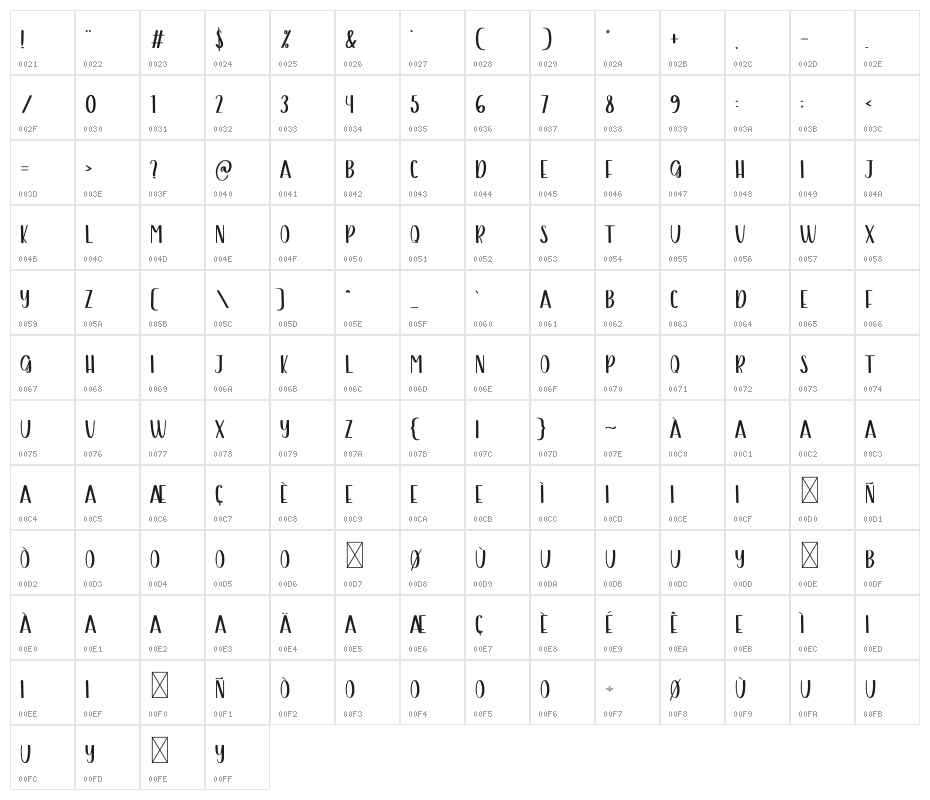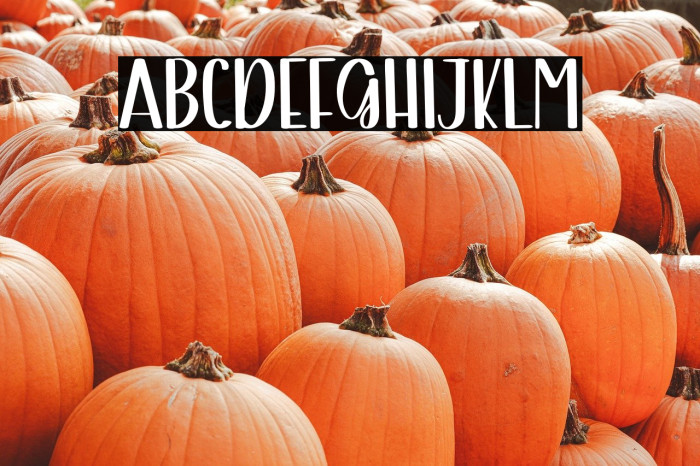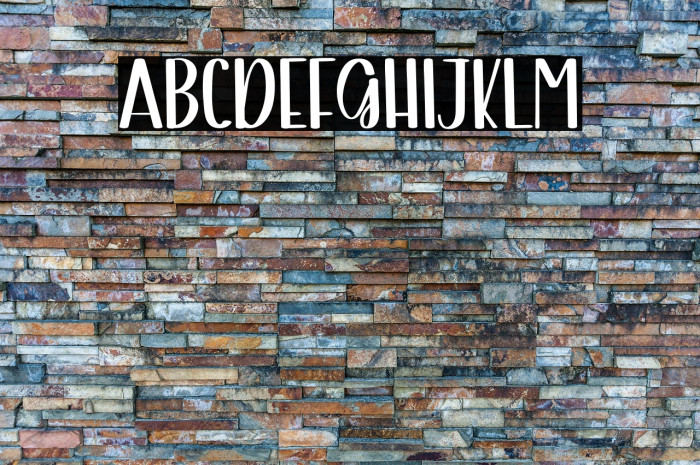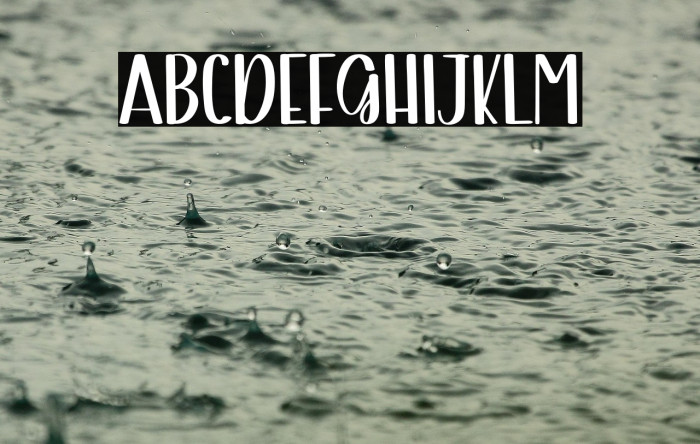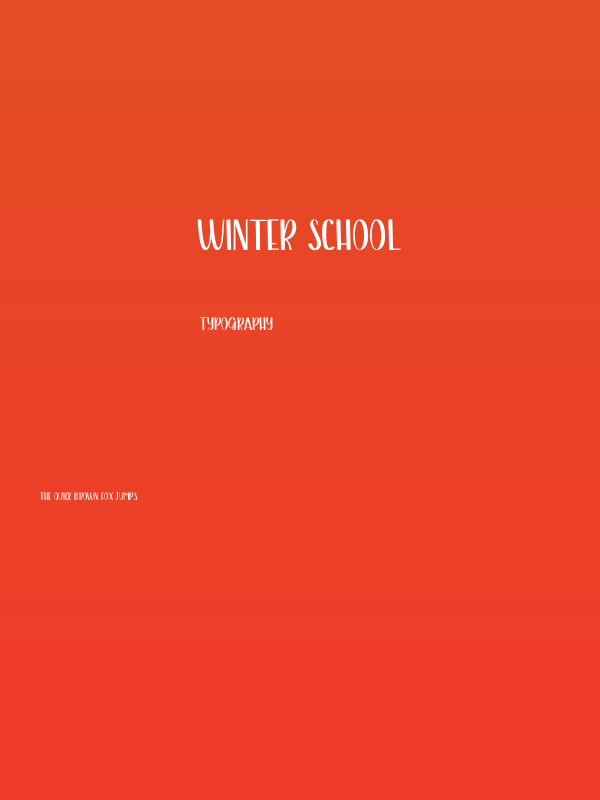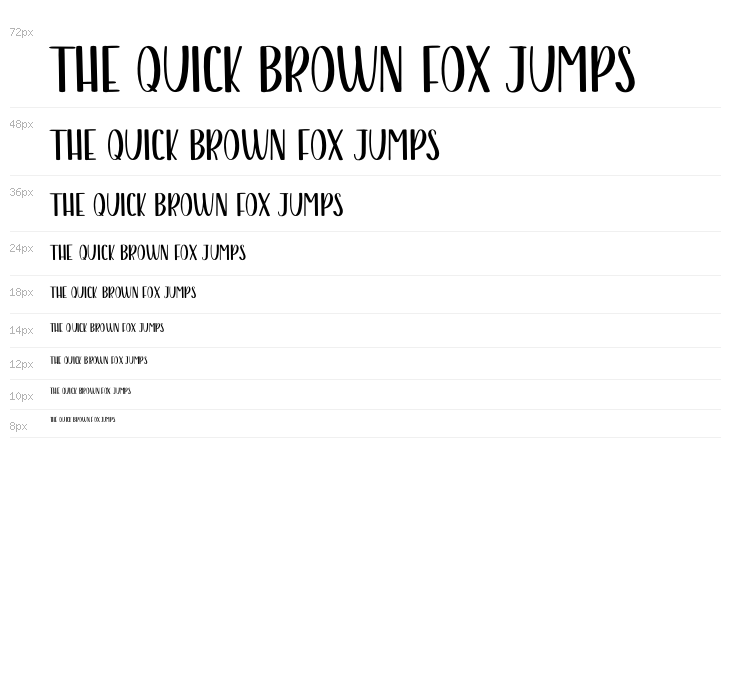
Winter School Font
Winter School Description
A playful, handwritten font with a casual and friendly appearance, featuring slightly irregular strokes and a whimsical style.
| Overall Style | Casual, Whimsical |
| Use Case | Headlines, Invitations, Greeting cards |
| Proposed Projects | Greeting cards, invitations, playful branding. |